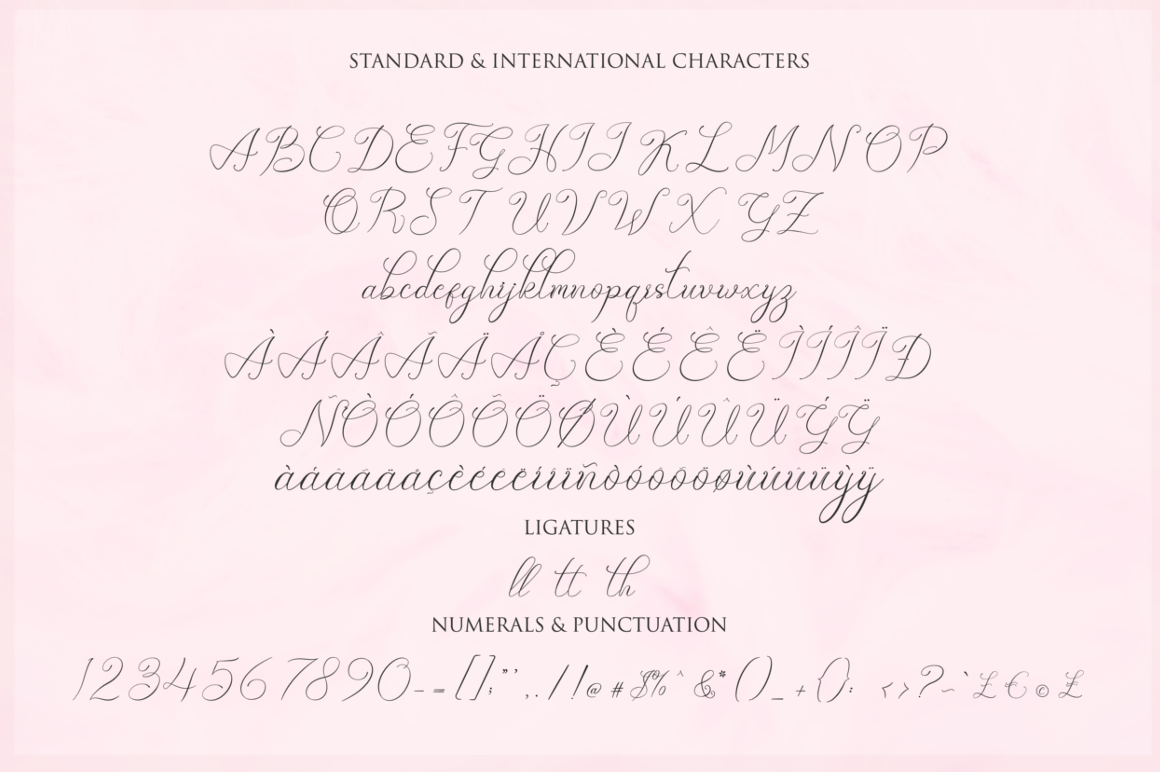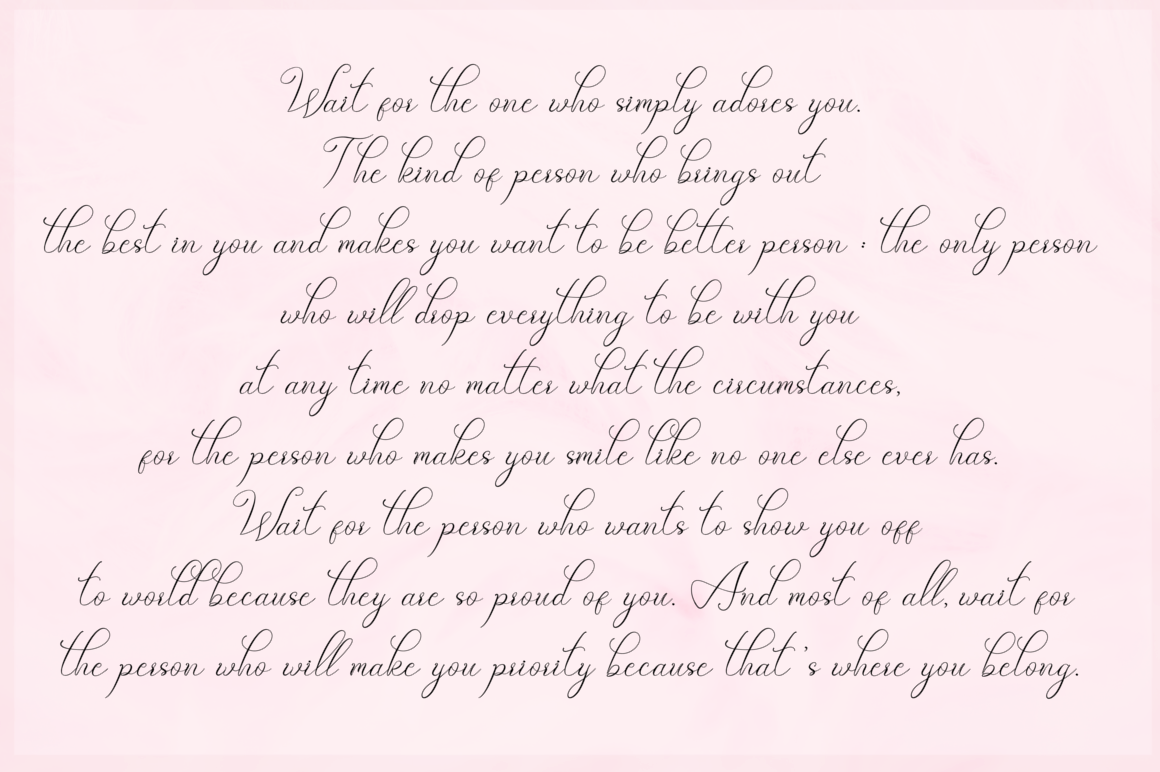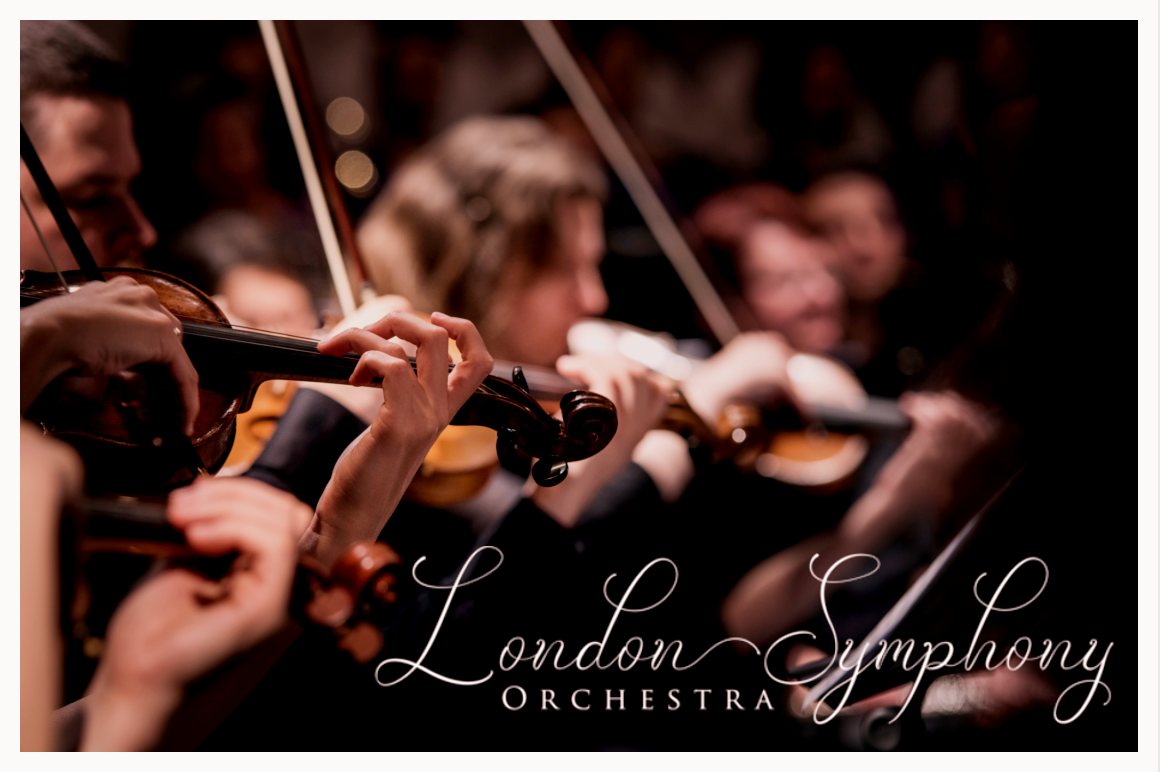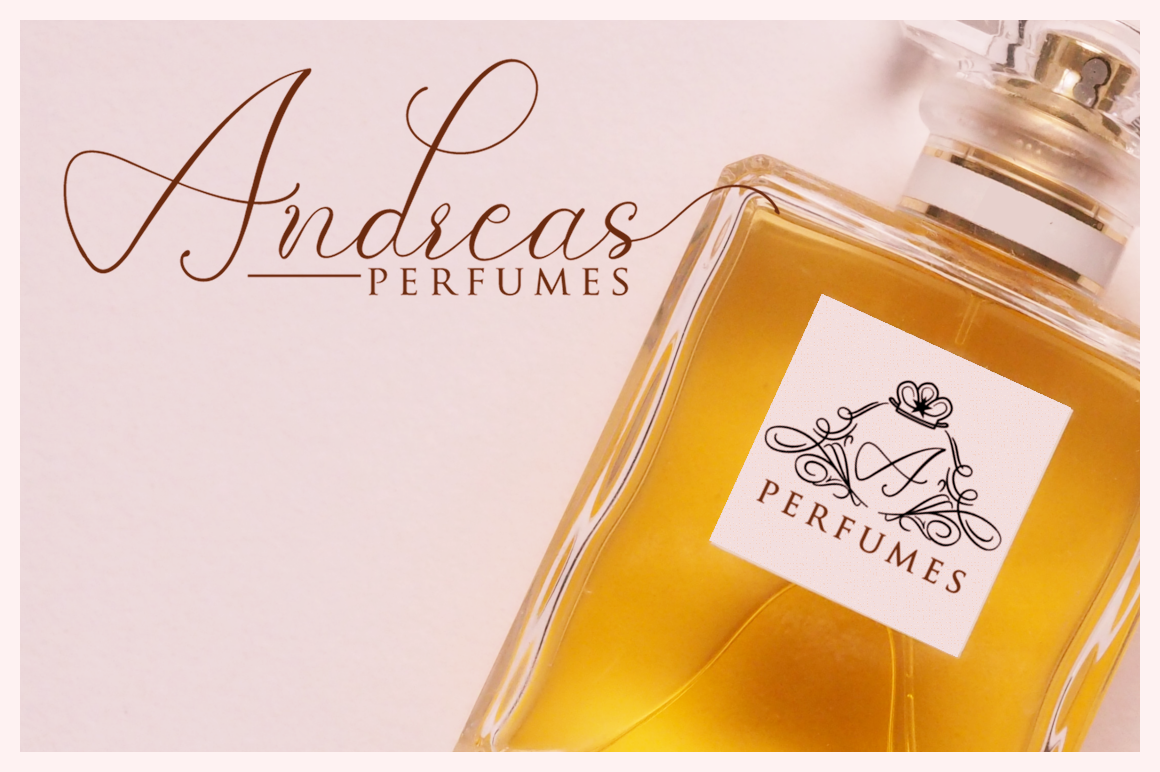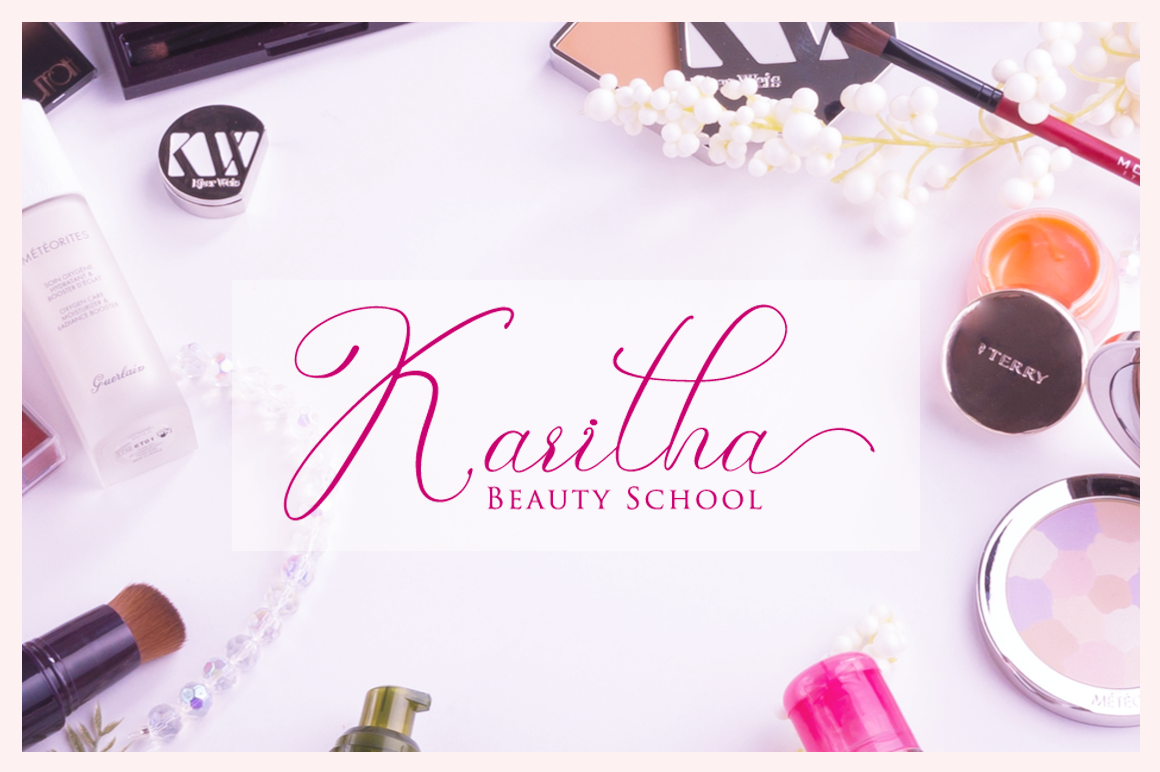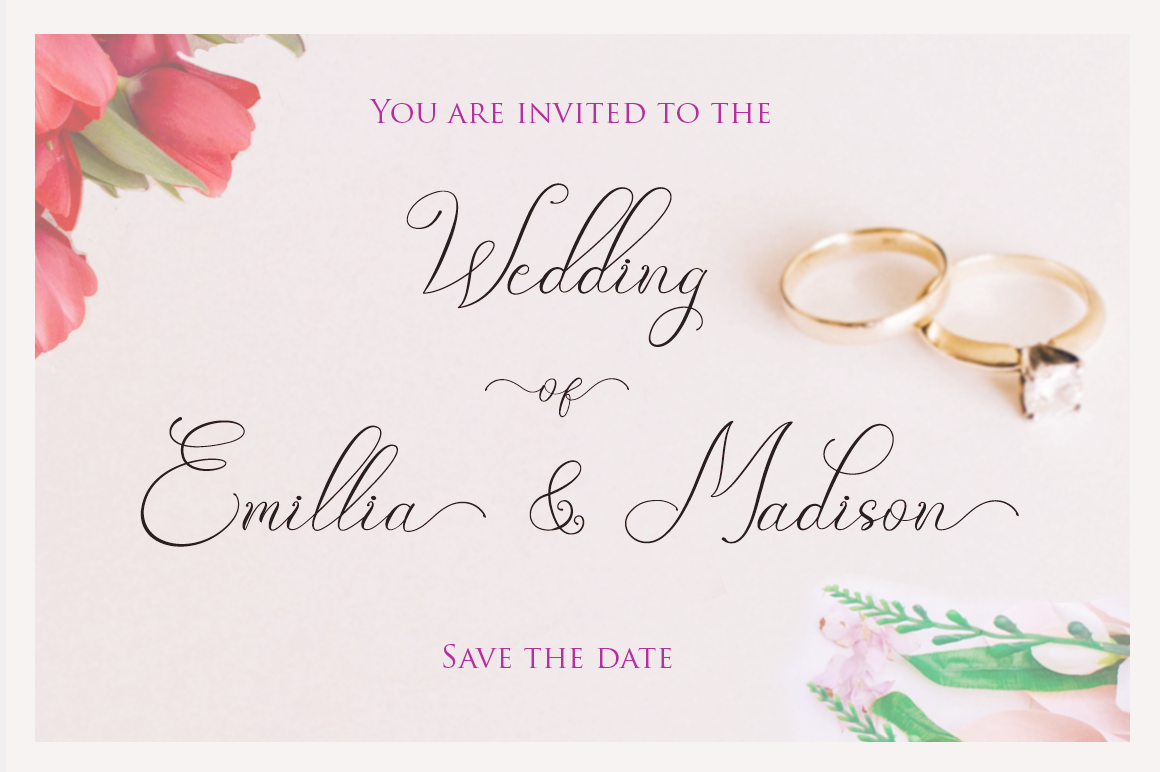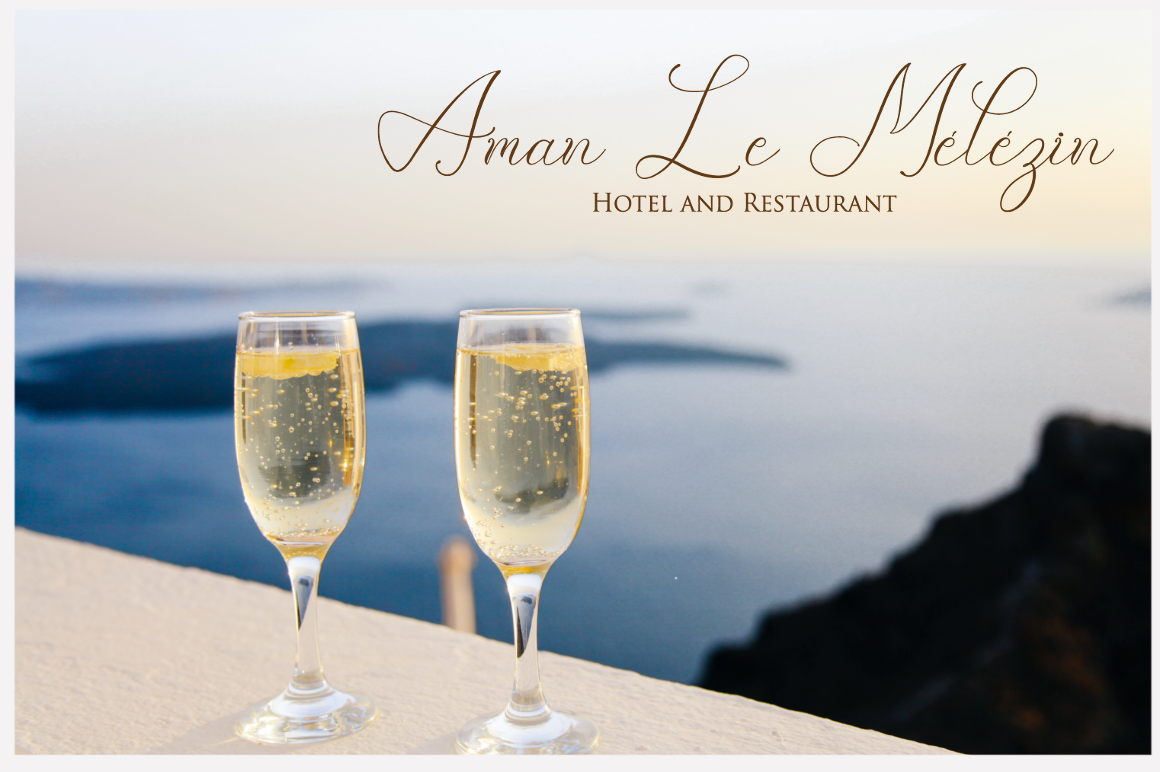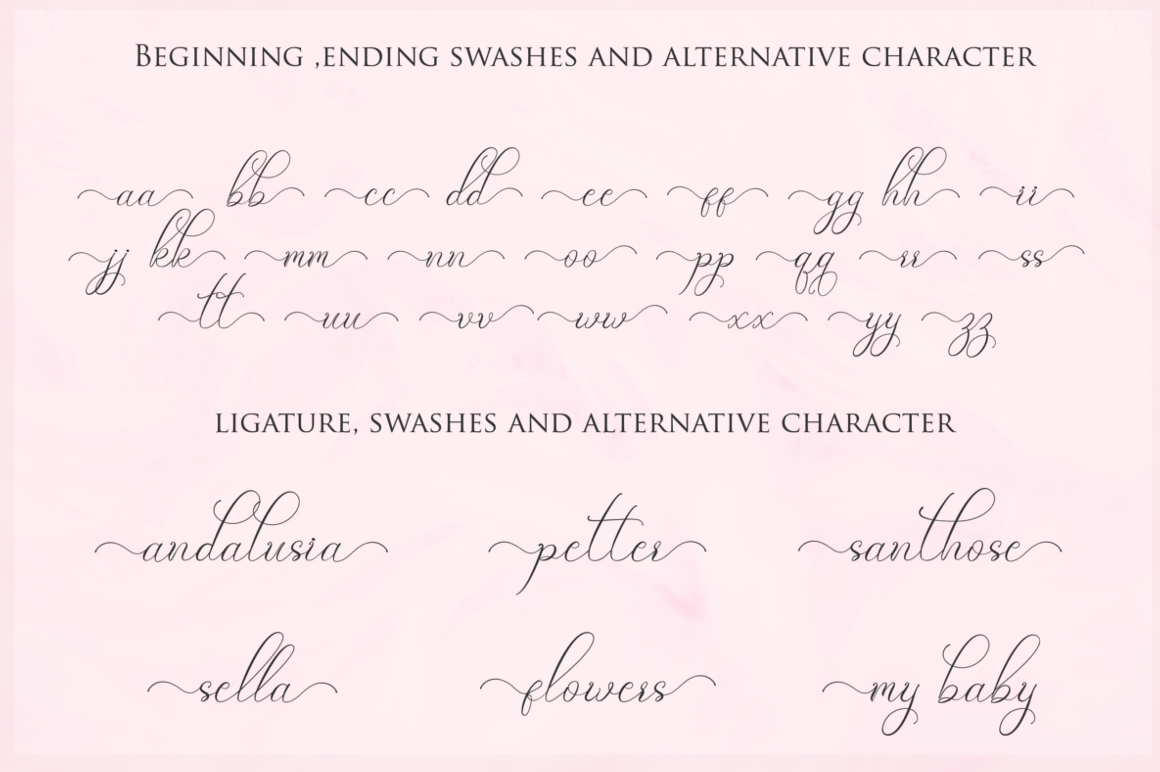
Adora Queen Font
About Adora Queen Font
Adora Queen is a modern-style calligraphy font. It features stunning decorative swashes, allowing you to use it in many different types of projects.